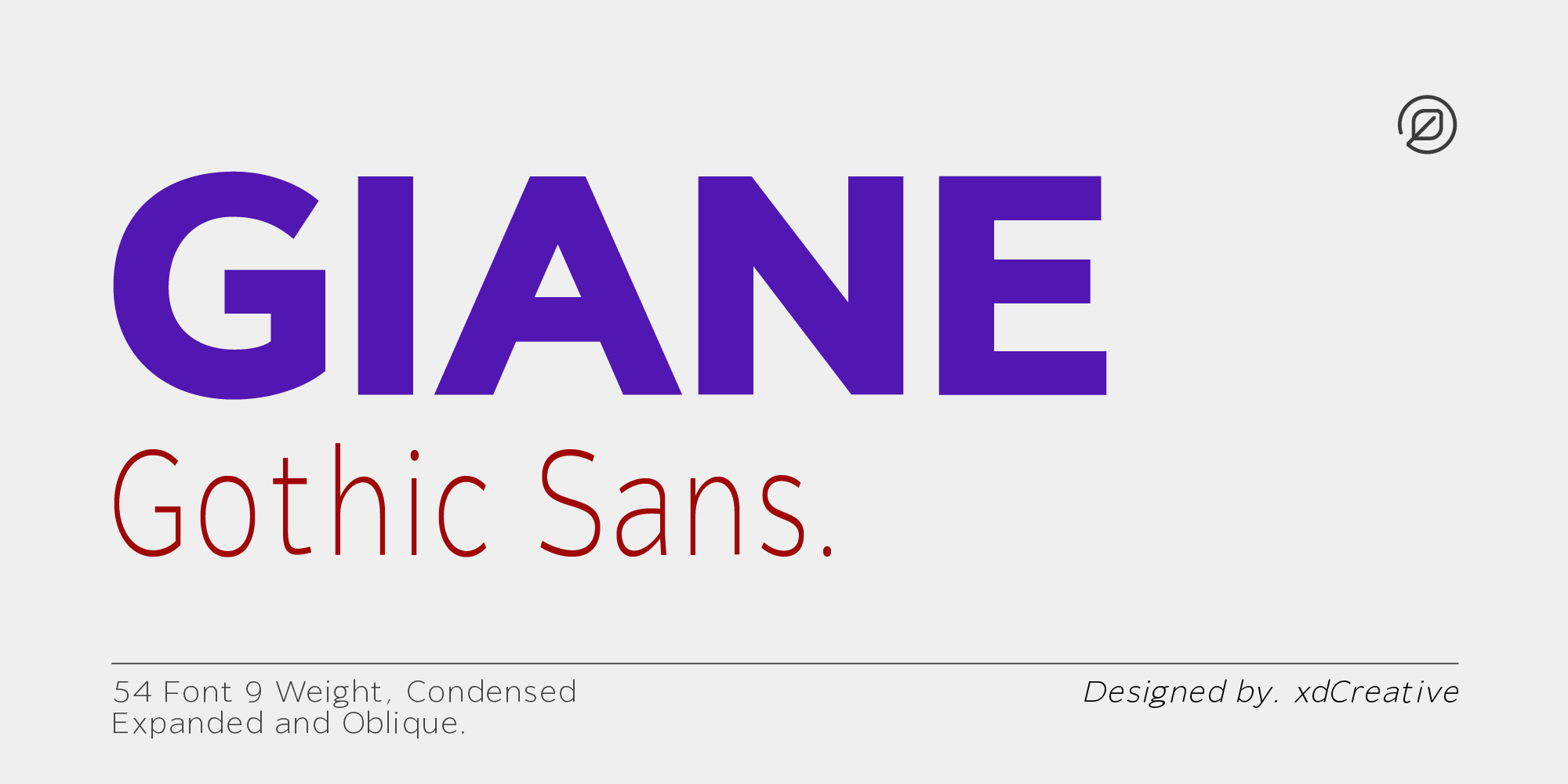
Giane Gothic Sans Font is perfect for dramatic fashion branding, architectural firm logos, contemporary art galleries, sophisticated magazine layouts, luxury automotive advertising, modern corporate identities, urban lifestyle campaigns, and striking editorial designs. This commanding typeface excels in sophisticated environments, contemporary design applications, and any project requiring dramatic elegance that communicates powerful sophistication and architectural precision through bold visual authority.
What makes Giane Gothic Sans Font exciting is its exceptional ability to merge gothic drama with contemporary minimalism through powerfully crafted letterforms that command attention while maintaining sophisticated restraint. The font features dramatically designed characters with gothic-inspired angles and sans-serif clarity that evoke feelings of architectural strength and modern sophistication, making it ideal for brands seeking to establish commanding presence and communicate through powerful contemporary visual language. Its dramatic presence ensures immediate recognition of architectural authority and sophisticated design excellence.
Giane Gothic Sans Font family includes multiple weights and styles: Regular, Bold, Light, Medium, Italic variations, and architectural alternates with gothic embellishments and contemporary decorative elements. Each family member maintains the distinctive dramatic character while offering comprehensive design options for sophisticated campaigns, from elegant architectural text to commanding gothic headlines that establish design authority and contemporary credibility through dramatically sophisticated typography.
Whether you're designing architectural brand identities or creating sophisticated contemporary campaigns, Giane Gothic Sans Font Free Download provides the perfect typography solution for dramatic branding needs. This font transforms ordinary text into powerful architectural statements that communicate gothic sophistication and contemporary authority. Luxury design firms and contemporary architecture studios choose this typeface for its ability to convey dramatic elegance through architecturally crafted letterforms that build sophisticated visual structures and celebrate the powerful intersection of gothic drama and modern design.